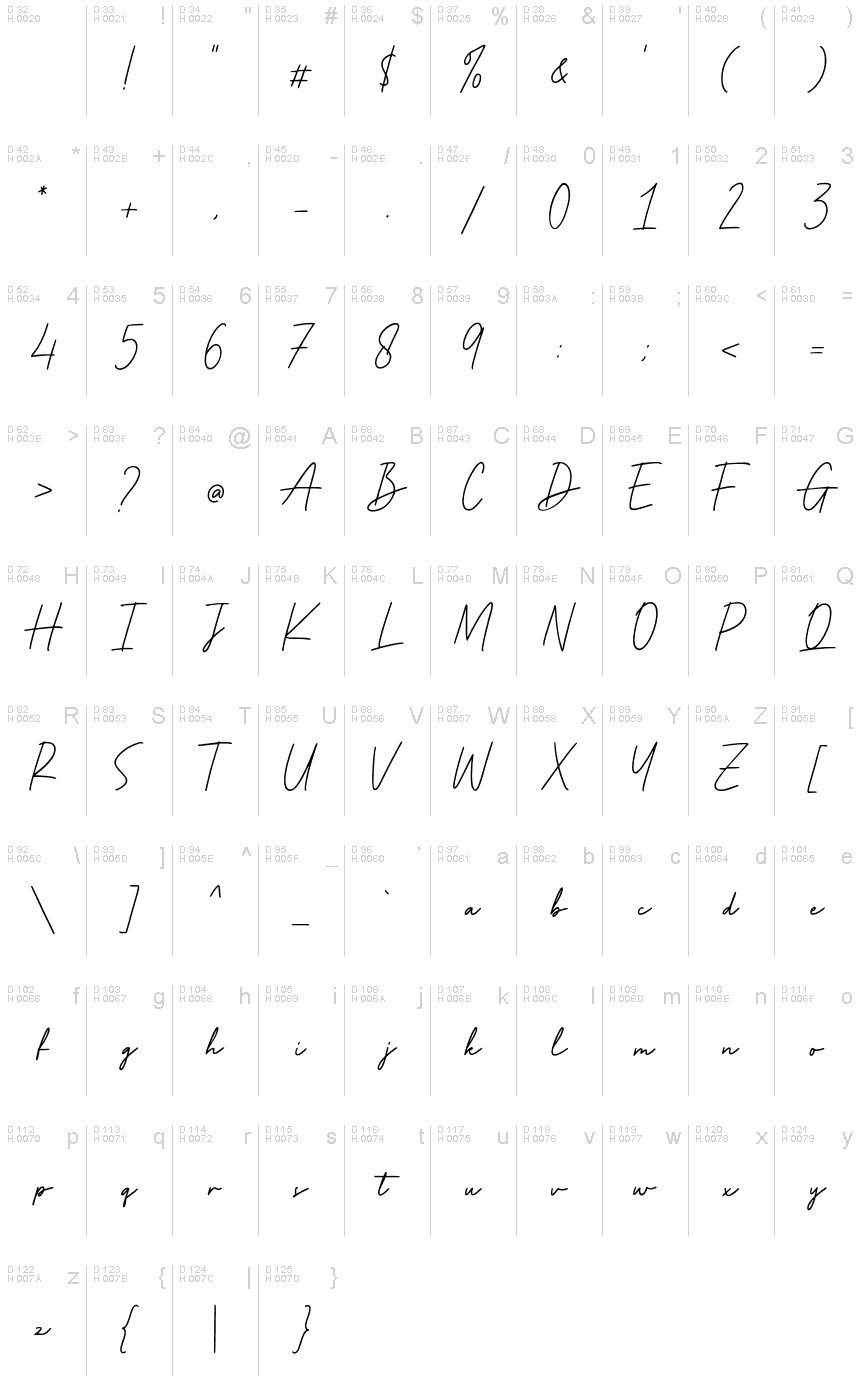
Manly Signature
Manly Signature is a handwritten signature font designed by Allouse.Studio. With a light weight and smooth curves, it's perfect for creating eye-catching logos, signatures, wedding invitations, and more! Use Manly Signature to add a touch of personality to your next creative project.